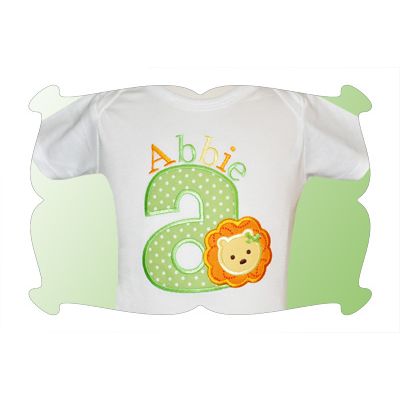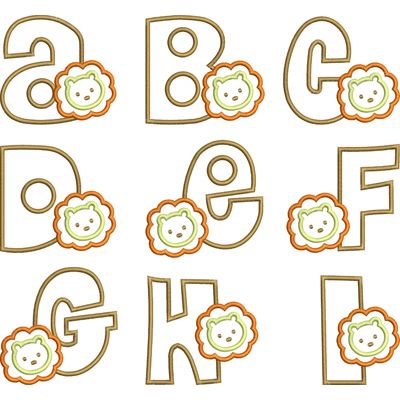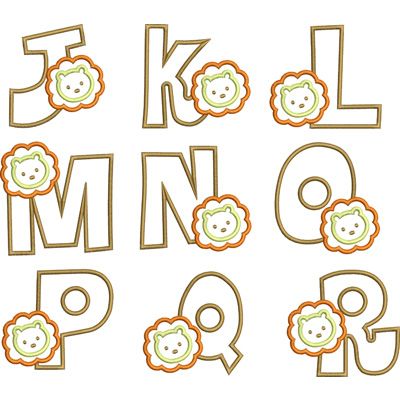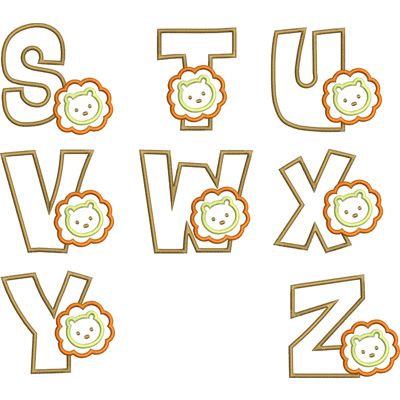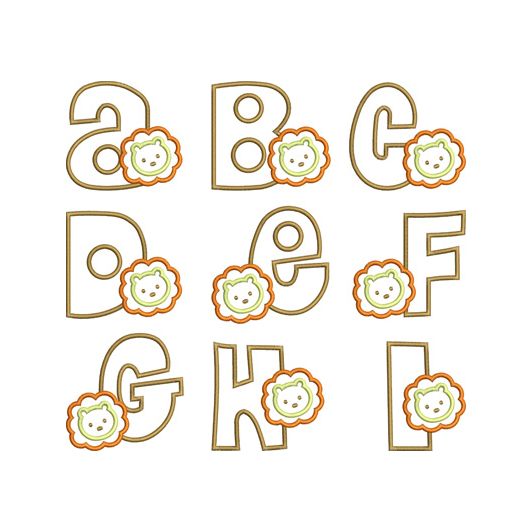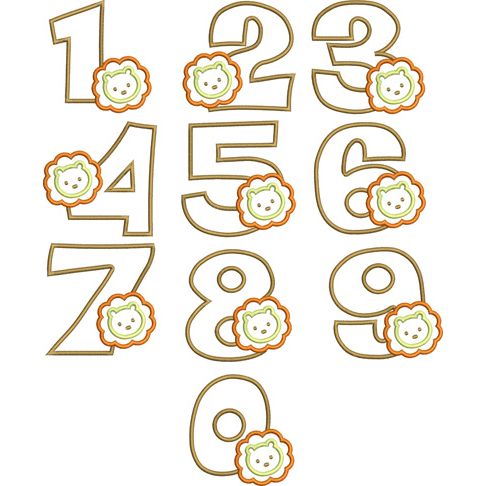
Lion Satin Stitch Applique Monogram Embroidery Font
Lion Applique Font
This cute applique font would be great for birthday number t-shirts!
And a great font for those who love the zoo!
Upper Case letters A thru Z, numbers 0-9. Please note this font is a bit wonky and some of the upper case letters are actually lower case letters. It's a cute look you're sure to love!